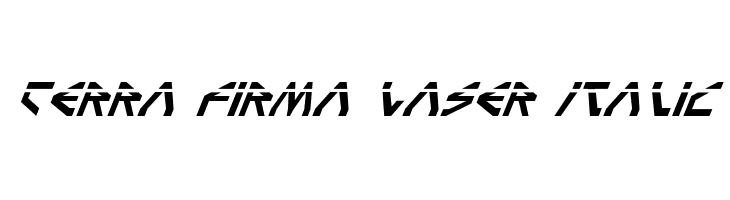
A bold, angular, and futuristic italic font with a dynamic, geometric style.
A bold, geometric font with a futuristic and angular design.
A futuristic, geometric font with sharp angles and clean lines.